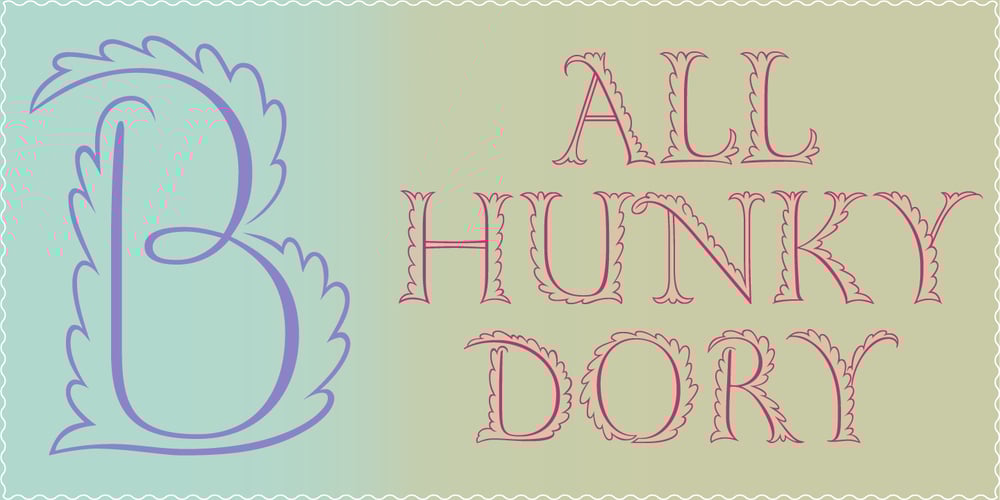
Gill Floriated Capitals
Gill Floriated Capitals font
Gill Floriated Capitals Font Family was designed by Eric Gill, Steve Matteson, Monotype Design Studio and published by Monotype. Gill Floriated Capitals contains 1 styles and family package options. Gill Floriated is based on a single character which Eric Gill drew as a decorated initial for use on a specimen setting of his Perpetua type. Although Gill was at first reluctant to produce a full alphabet, Monotype advisor Stanley Morison was able to persuade him to draw a few more characters from which the Type Drawing Office was able to create a full set. Issued in 1937 for display casting, it was revived by Monotype in 1995 for electronic publishing. Best used sparingly as dropped initials.